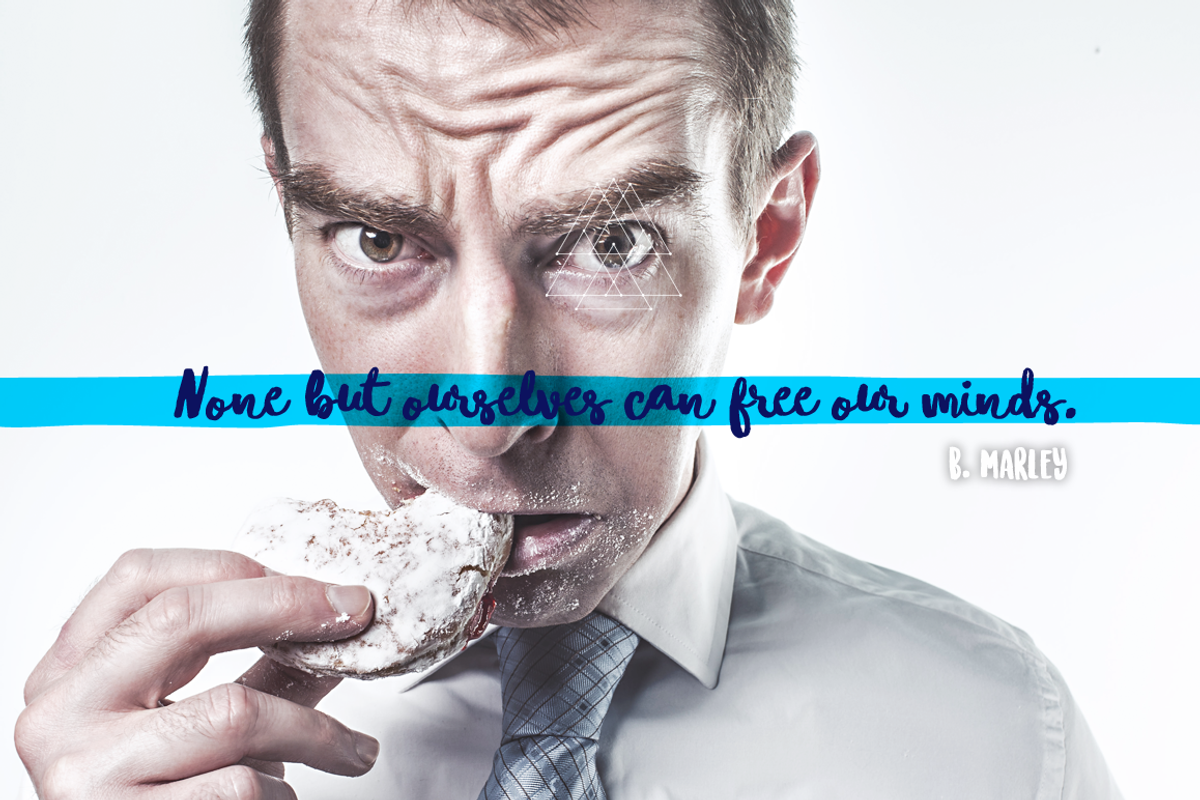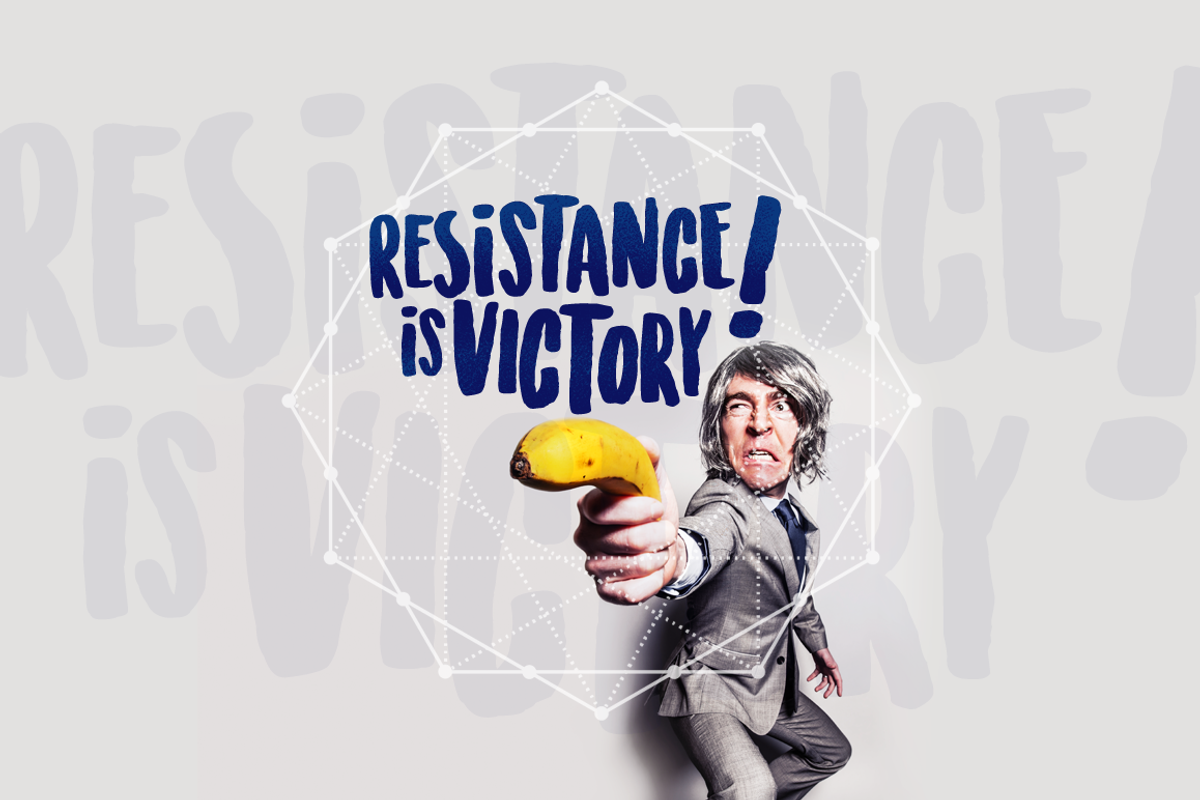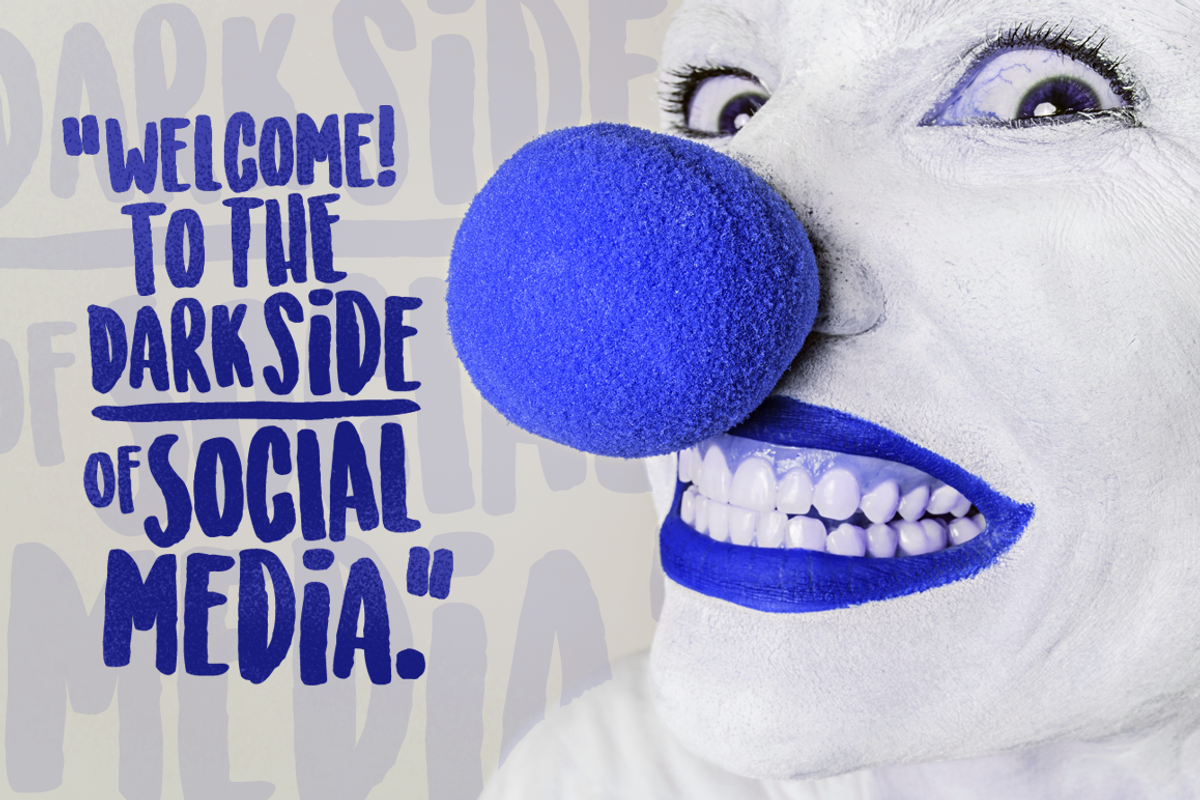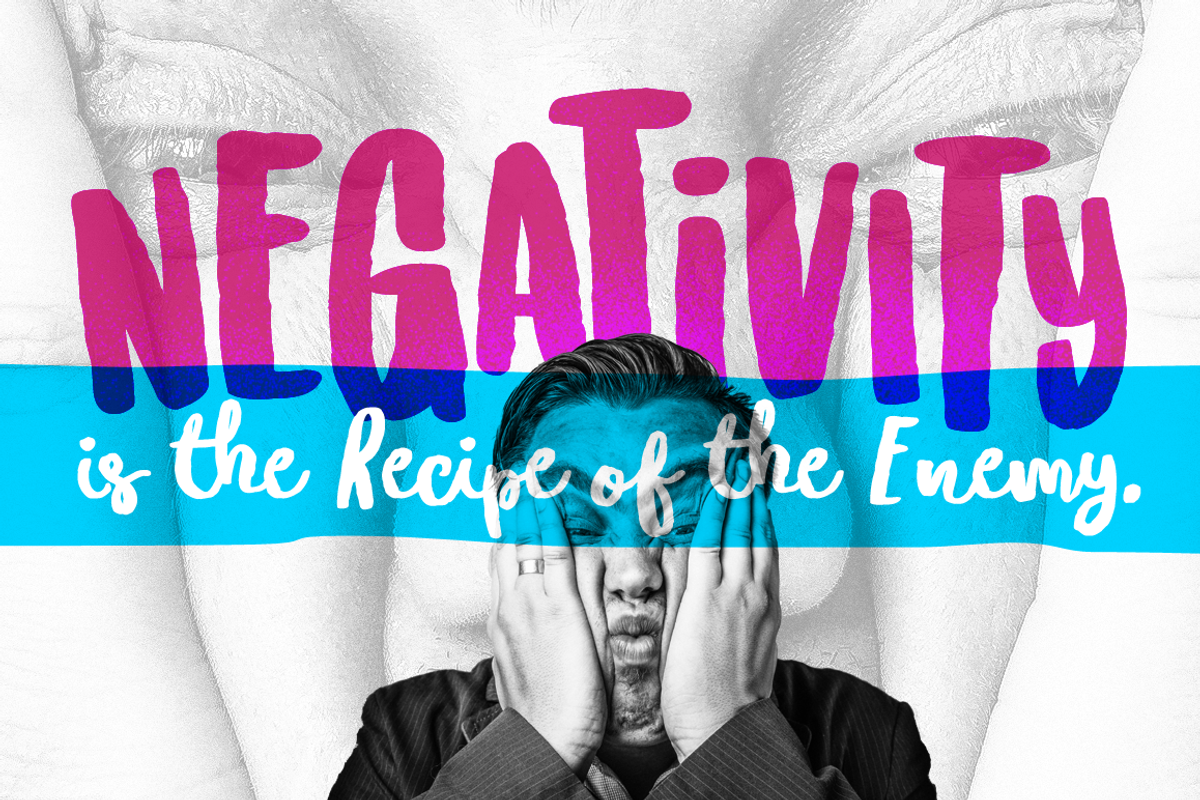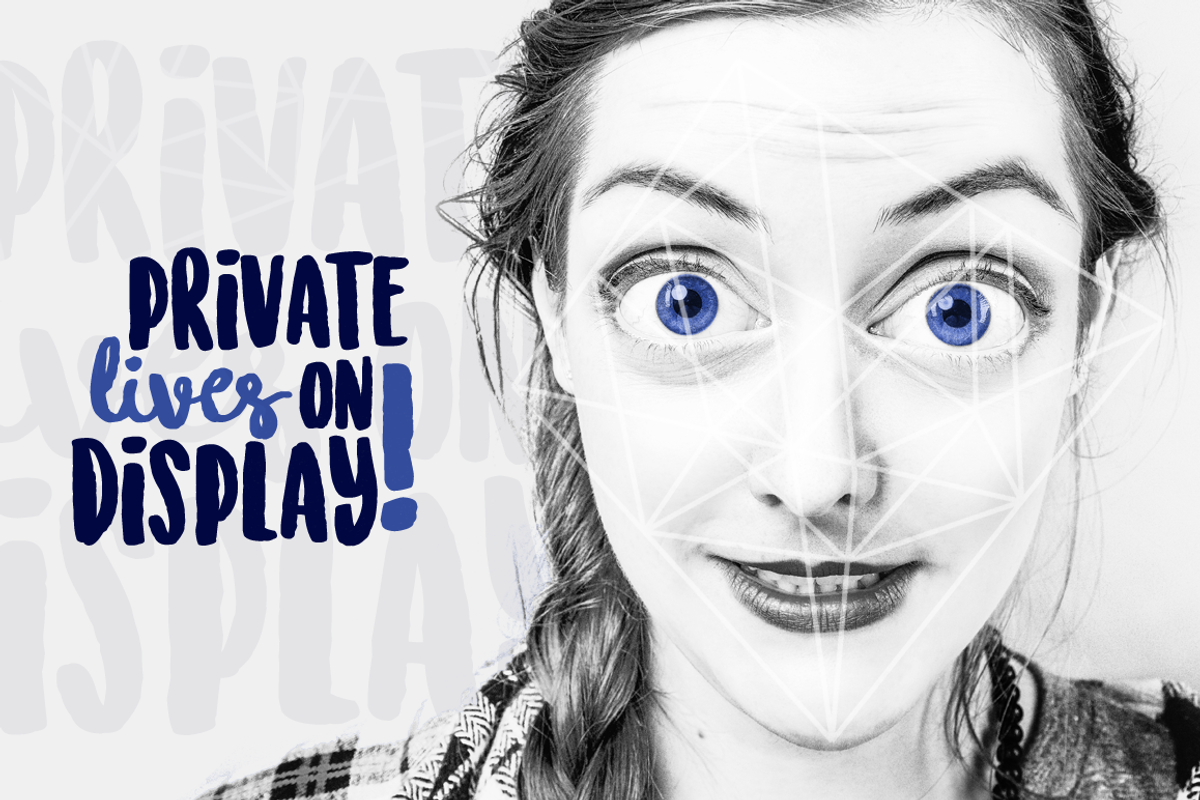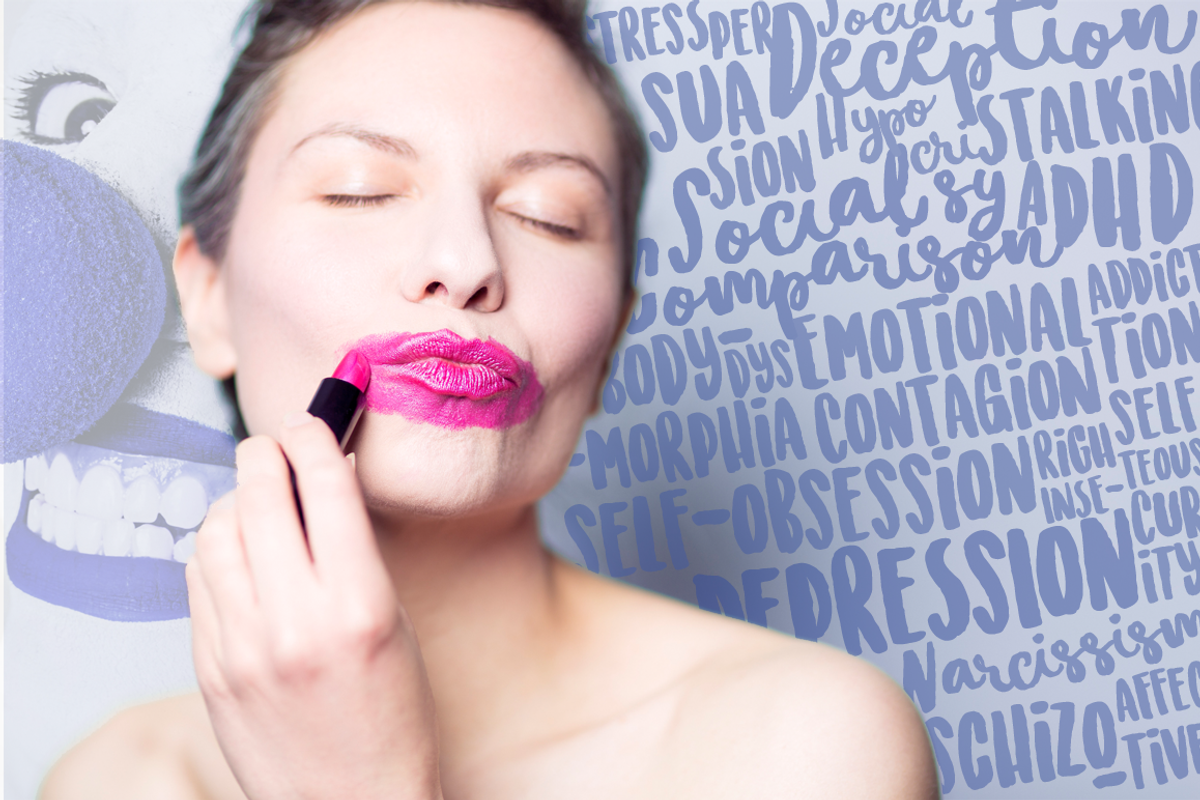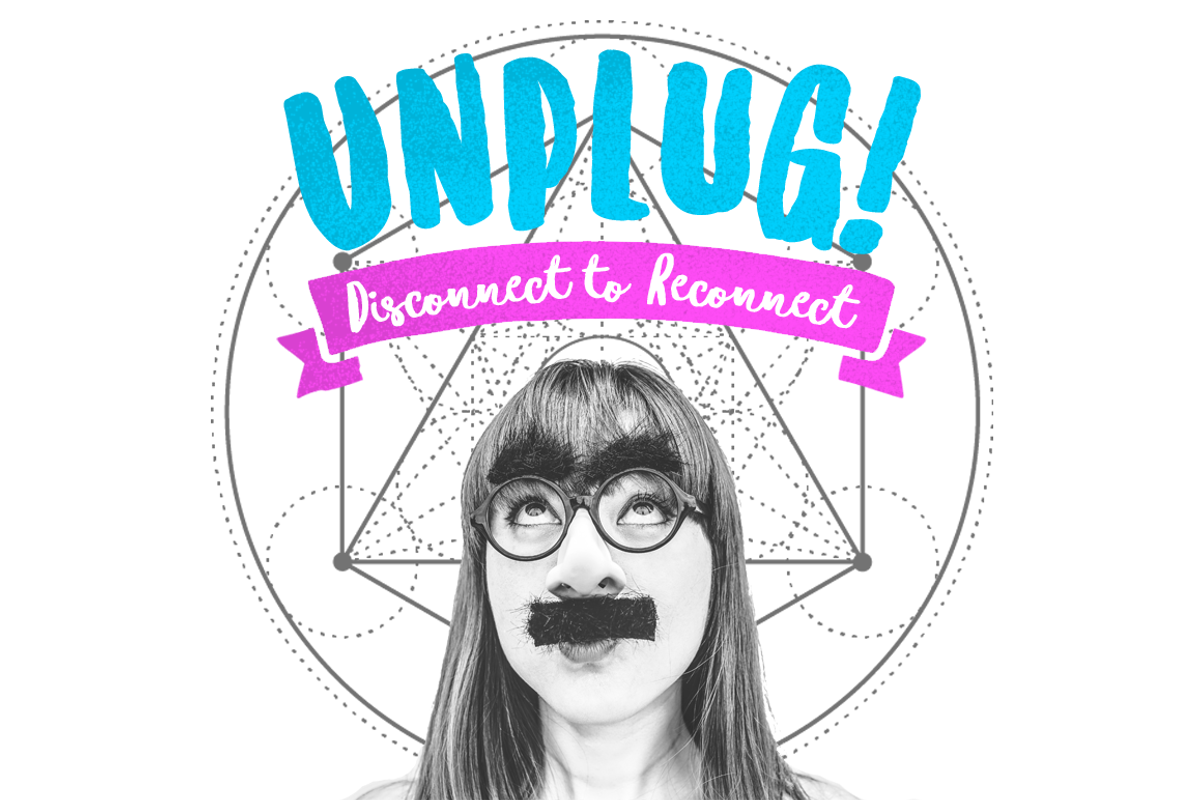
Sunrise International (Typeface)
Sunrise International (Typeface) by The Branded Quotes is a font selected for branding, posters, packaging, typography.
- The alternates are found on its uppercase form for your convenience.
- Sunrise International Regular
- Sunrise International Script Regular
Why Sunrise International (Typeface) is worth a look
Sunrise International (Typeface) by The Branded Quotes fits naturally into Branding, posters, packaging, typography.